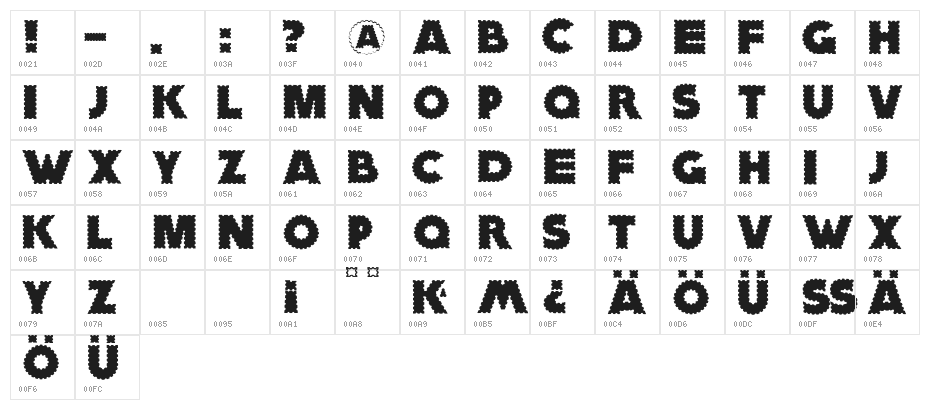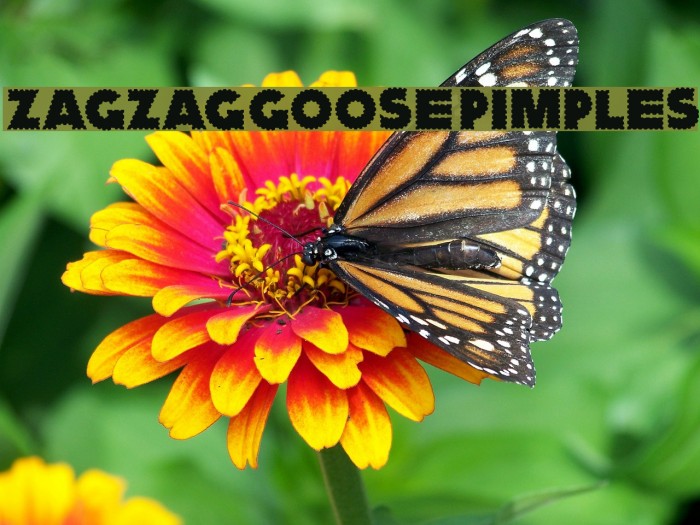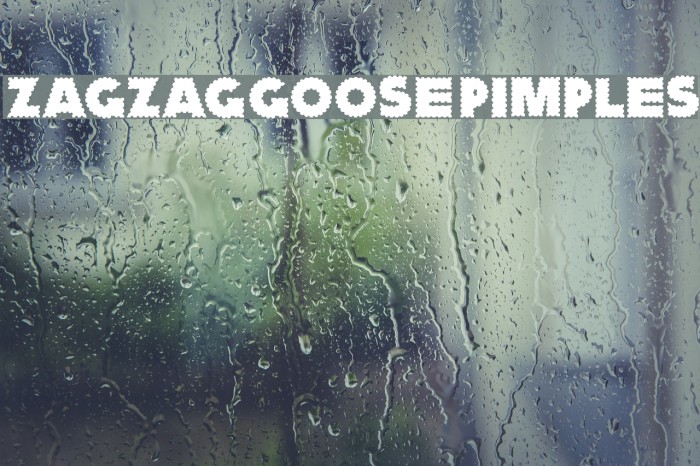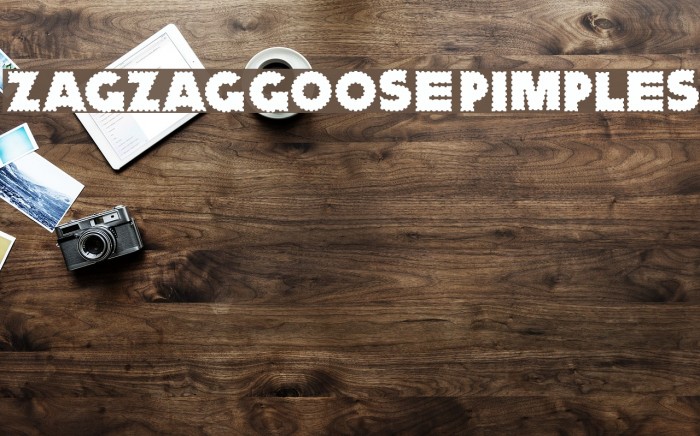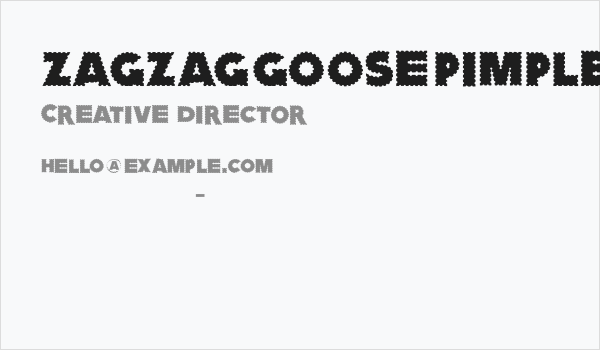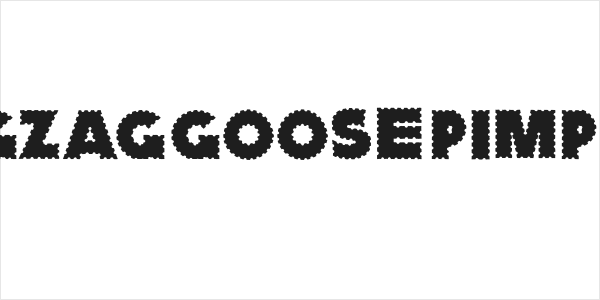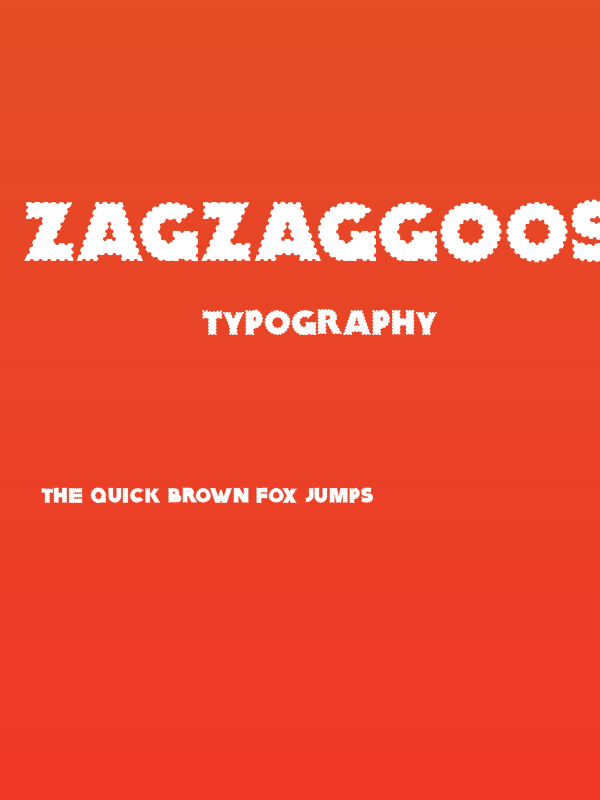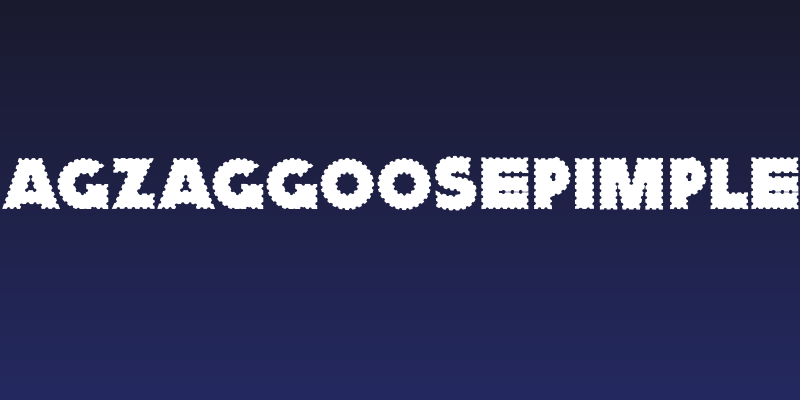
ZagzagGoosePimples Font
ZagzagGoosePimples Description
This font features a bold, playful design with a zigzag pattern along the edges of each character, creating a dynamic and eye-catching effect. The uppercase letters are uniform in height, while the overall style is consistent across the alphabet. The unique texture adds a sense of movement and energy, making it ideal for projects that require a fun and engaging visual element. The font's distinctive appearance is well-suited for creative applications where a strong visual impact is desired.
| Overall Style | Playful, Dynamic, Creative |
| Proposed Projects | Perfect for children's books, playful branding, posters, and creative advertising. |